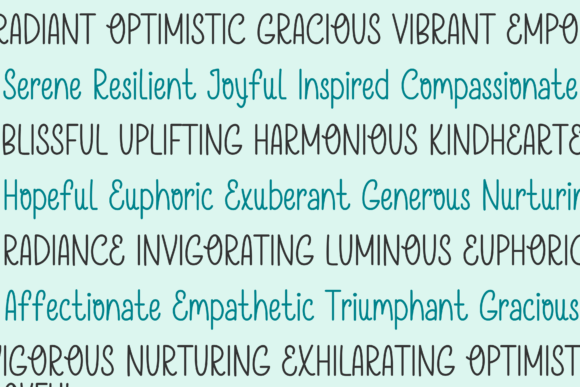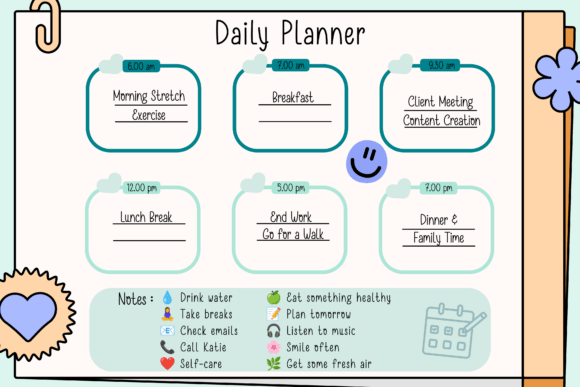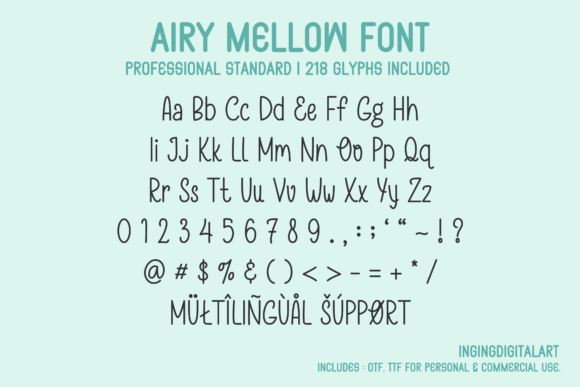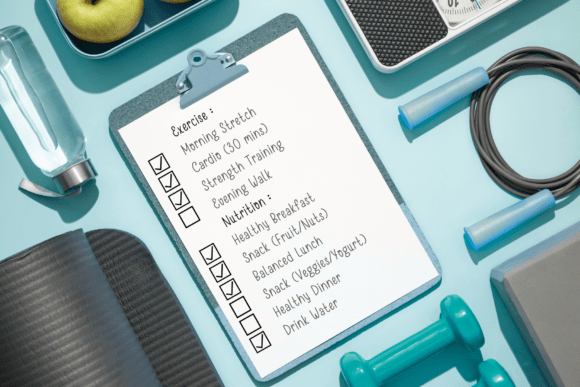
Introducing Airy Mellow Font: The Perfect Handwriting Companion for Designers and Crafters
Are you on the hunt for a font that adds a touch of simplicity and cuteness to your designs? Look no further than Airy Mellow Font! This charming handwriting font is ideal for a variety of projects, from social media graphics and digital planning to branding, crafts, and invitations. In this article, we’ll dive into the features and benefits of Airy Mellow Font, and explore how it can elevate your creative endeavors.
What is Airy Mellow Font?
Airy Mellow Font is a beautifully crafted handwriting font that exudes a sense of simplicity and playfulness. Its gentle, flowing lines make it perfect for creating visually appealing designs that capture the attention of your audience. Whether you’re a designer, crafter, or social media enthusiast, Airy Mellow Font is an excellent addition to your font collection.
Key Features of Airy Mellow Font
So, what makes Airy Mellow Font so special? Here are some of its key features:
- Uppercase and lowercase letters: Airy Mellow Font includes a full set of uppercase and lowercase letters, allowing you to create a wide range of designs and projects.
- Numbers and basic punctuation marks: The font also includes numbers and basic punctuation marks, making it easy to create complex designs and layouts.
- International characters: Airy Mellow Font supports international characters, ensuring that you can use it for projects that require non-English text.
Use Cases for Airy Mellow Font
Airy Mellow Font is an incredibly versatile font that can be used for a variety of projects, including:
- Social media graphics: Add a touch of personality to your social media posts and stories with Airy Mellow Font.
- Digital planning: Use Airy Mellow Font to create beautiful and functional digital planners that help you stay organized.
- Branding: Airy Mellow Font is perfect for creating logos, business cards, and other branding materials that require a personal touch.
- Decor crafts: Add a touch of whimsy to your craft projects, such as scrapbooking, card making, and DIY decor.
- Invitations: Use Airy Mellow Font to create beautiful and unique invitations for special occasions, such as weddings, birthdays, and baby showers.
Benefits of Using Airy Mellow Font
So, why should you choose Airy Mellow Font for your projects? Here are some benefits of using this lovely font:
- Ease of use: Airy Mellow Font is easy to read and works well in a variety of design contexts.
- Customization: The font’s simple and playful design makes it easy to customize and pair with other fonts.
- Versatility: Airy Mellow Font can be used for a wide range of projects, from digital designs to print materials.
- Uniqueness: Airy Mellow Font has a distinctive and charming design that sets it apart from other fonts.
Tips for Using Airy Mellow Font
To get the most out of Airy Mellow Font, here are some tips to keep in mind:
- Pair with other fonts: Experiment with pairing Airy Mellow Font with other fonts to create unique and interesting combinations.
- Use for headings and titles: Airy Mellow Font works well for headings and titles, adding a touch of personality to your designs.
- Experiment with colors: Try out different colors and textures to add depth and interest to your designs.
In conclusion, Airy Mellow Font is a delightful handwriting font that is perfect for designers, crafters, and social media enthusiasts. Its simplicity, cuteness, and versatility make it an excellent addition to any font collection. Whether you’re creating social media graphics, digital planners, or branding materials, Airy Mellow Font is sure to bring a touch of personality and whimsy to your designs.